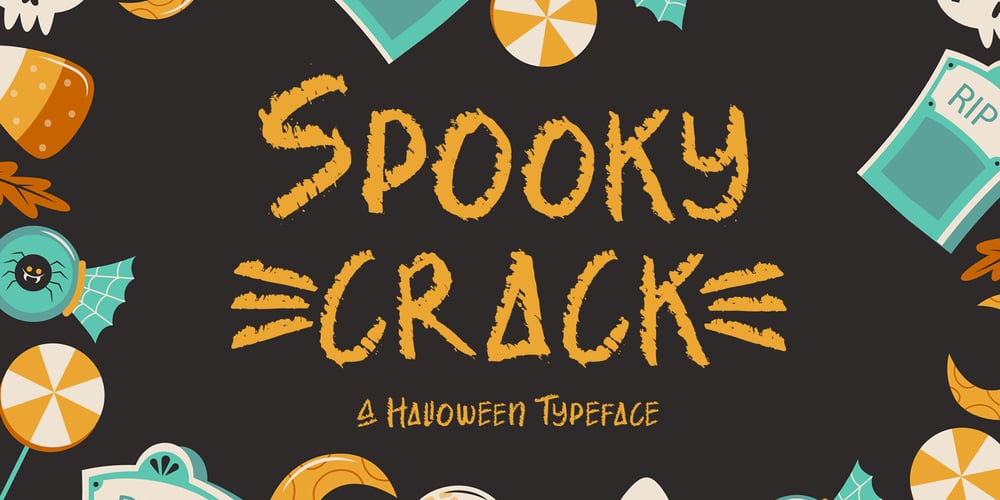
Spooky Crack Font Family was designed by Agung Eko Nugroho and published by AEN Creative Studio. Spooky Crack contains 2 styles and family package options. Spooky Crack is an incredibly unique and interesting display font. It is perfectly suitable for any Halloween-related project or crafty idea! Spooky Crack is PUA encoded which means you can access all of the glyphs and swashes with ease!